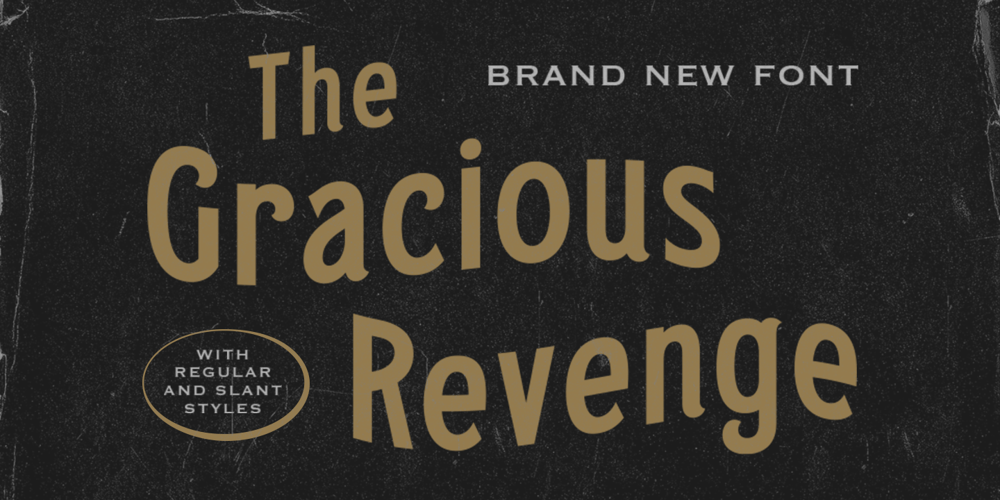
Gracious Revenge
Gracious Revenge font
Gracious Revenge Font Family was designed by Hendry Juanda and published by Letterhend. Gracious Revenge contains 2 styles and family package options. The Gracious Revenge is a display sans with classy and modern looks. It comes with slant style too. This font perfectly made to be applied especially in logo, and the other various formal forms such as invitations, labels, logos, magazines, books, greeting / wedding cards, packaging, fashion, make up, stationery, novels, labels or any type of advertising purpose.Features : Uppercase & lowercase Numbers and punctuation Alternates & Ligatures Multilisngual PUA encoded